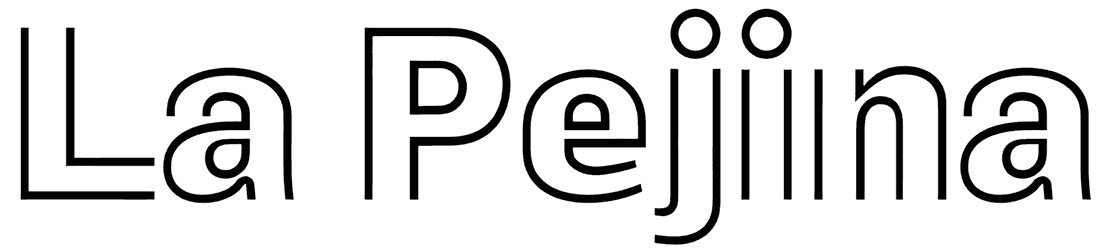
La Pejina FFP Font
To make a great impression on your readers, you require a cool font to take your content mood to another level, like La Pejina FFP. This outline font brings a different quality and vibe to your typography, which makes it a great choice for website headers, magazine covers, business cards, logos, and flyers.
La Pejina font es mi primera tipografía continental, una sans serif de doble línea que homenajéa a Laredo en Cantabría y a toda la comarca pejina donde vivo y trabajo ahora. Cluster estratégico del Norte de España
The font is my first Pejina continental typography, a serif sans double line honors Laredo in Cantabria and the entire region pejina where I live and work now. Strategic Cluster of Northern Spain